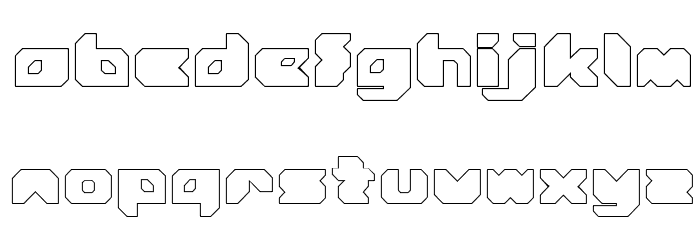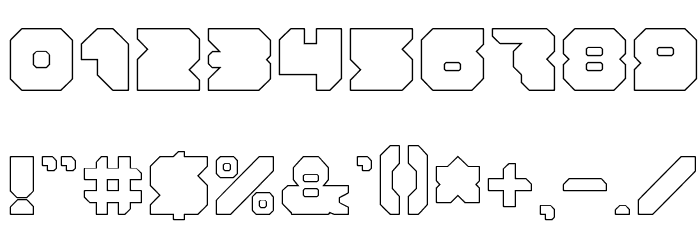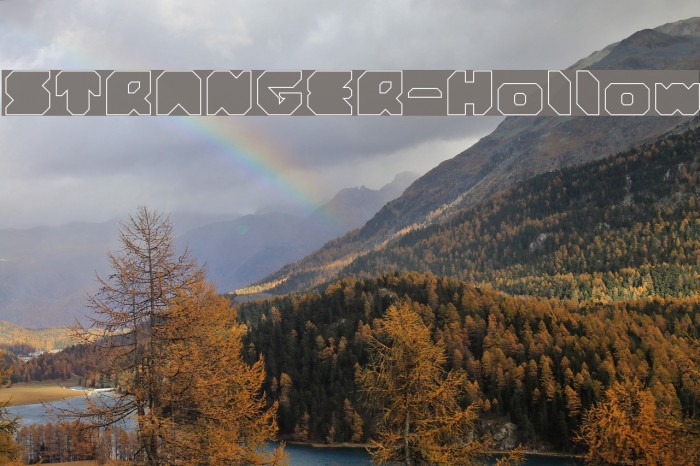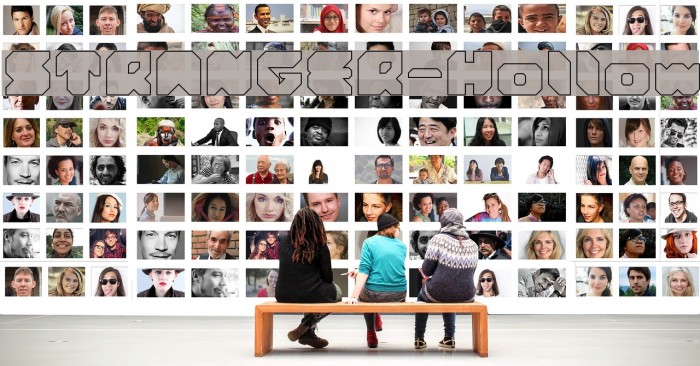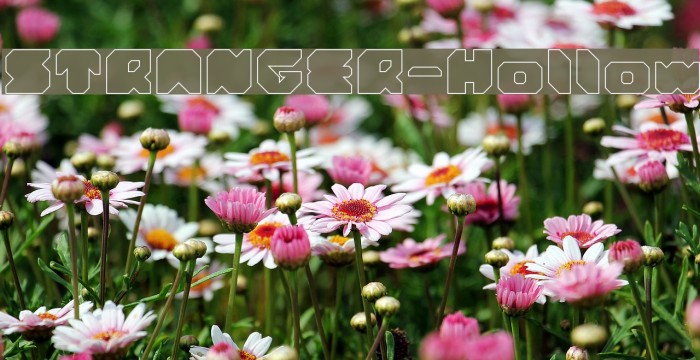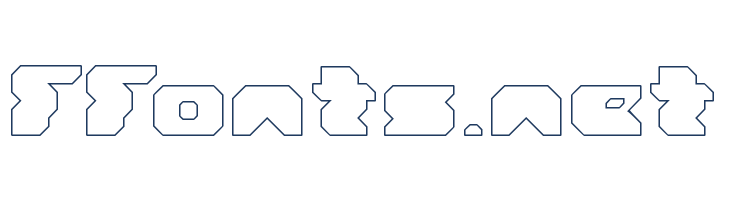
STRANGER-Hollow Font
This font features a bold, geometric design with hollow interiors, creating a striking and modern appearance. The characters are constructed with angular lines and sharp edges, giving them a futuristic and digital feel. The uppercase and lowercase letters maintain a consistent style, with the lowercase slightly smaller in size but equally bold. Numbers and special characters follow the same design principles, ensuring uniformity across all glyphs. The hollow aspect of the font adds a unique dimension, making it stand out in any design project.
A bold, geometric font with hollow interiors and a futuristic style.
- Proposed Projects: Ideal for digital art, tech-themed posters, video game graphics, and modern branding projects.